Pixlr is a photo editing and graphic design web app. It offers a range of tools and features for editing and enhancing images, including filters, effects, layers, and more. It also offers a wide range of fonts to use in your graphic designs. This article will cover the best Pixlr fonts in Canva.
The Best Fonts in Canva for Graphic Design Tool
1. Cinzel
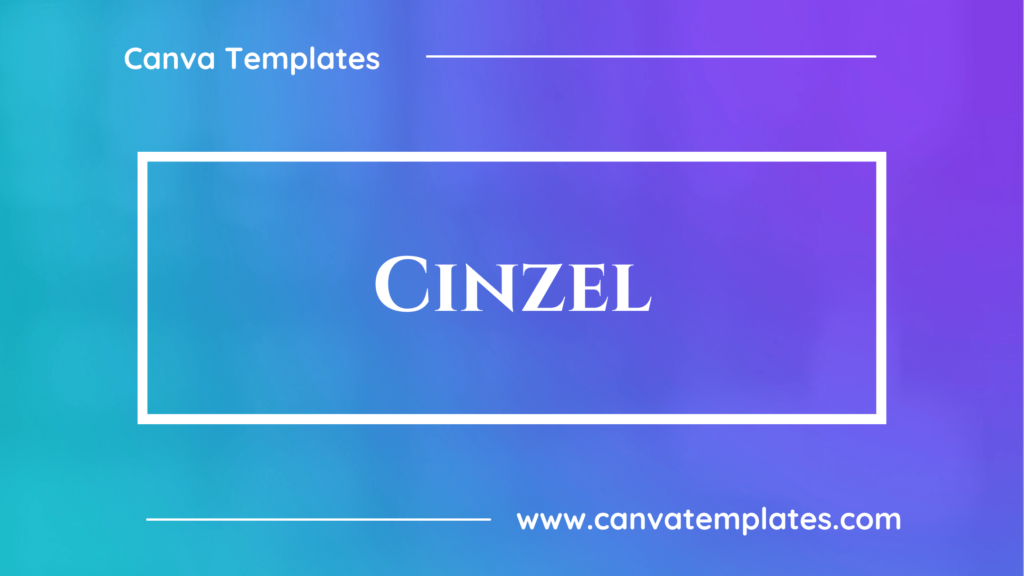
Cinzel is a typeface designed to be used for display purposes, such as headlines and titles. It is a serif font, which means it has small lines or decorative flourishes added to the ends of the main strokes of the letters. Cinzel is a geometric serif font, meaning that its design is based on geometric shapes and has a more modern and clean look than traditional serif fonts. It is available in regular, bold, and black weights, and has a wide range of characters and accents to support a variety of languages.
2. Yellow Peas
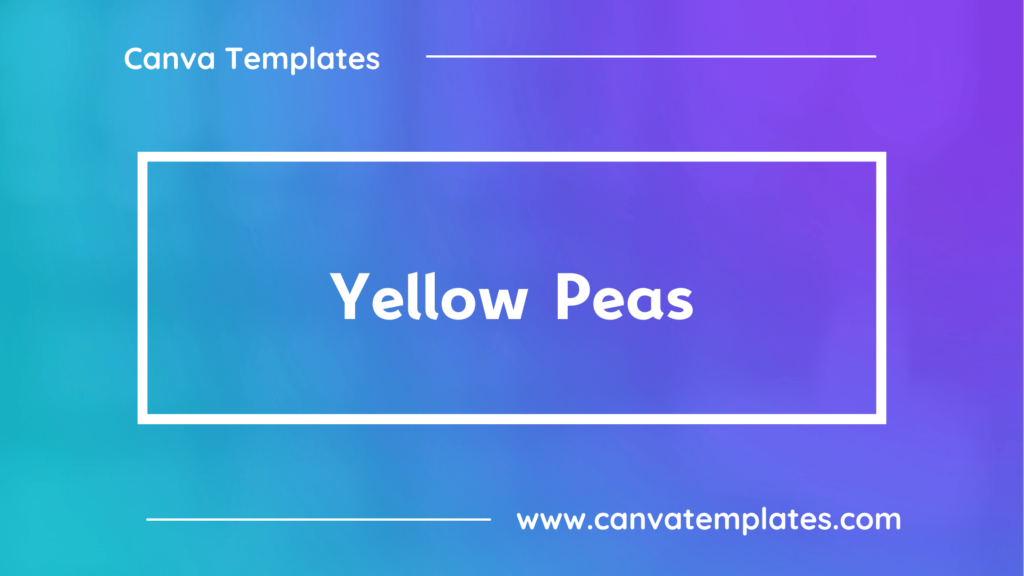
Yellow Peas Font Family was designed by Roland Hüse and published by Roland Hüse Design. Yellow Peas contains 10 styles and family package options.
3. Anahaw
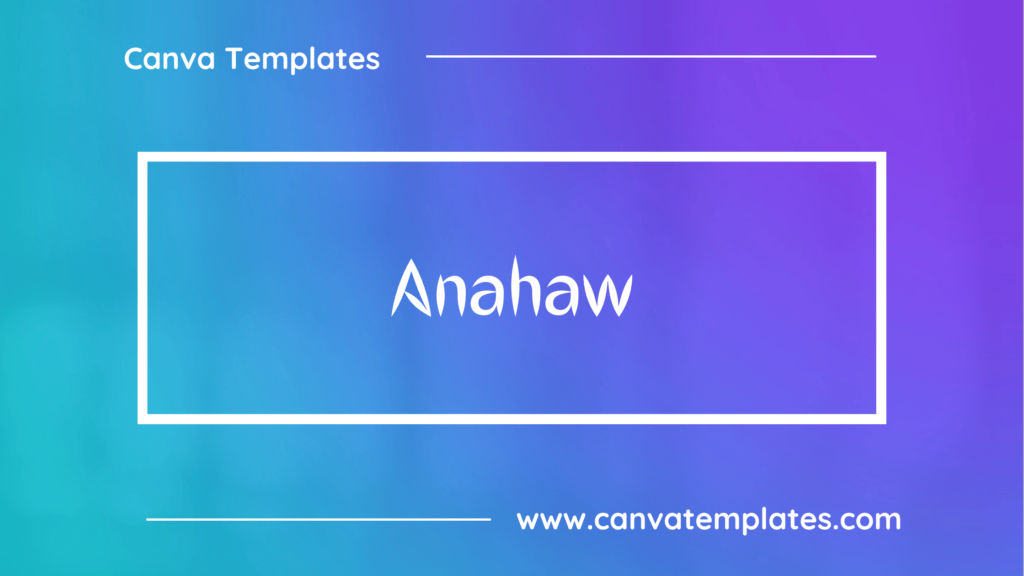
Anahaw is a sans-serif font, which means it does not have the small lines or decorative flourishes at the ends of the main strokes of the letters that are characteristic of serif fonts. Anahaw is a geometric sans-serif font, meaning that its design is based on geometric shapes and has a more modern and clean look than traditional sans-serif fonts.
4. Beast
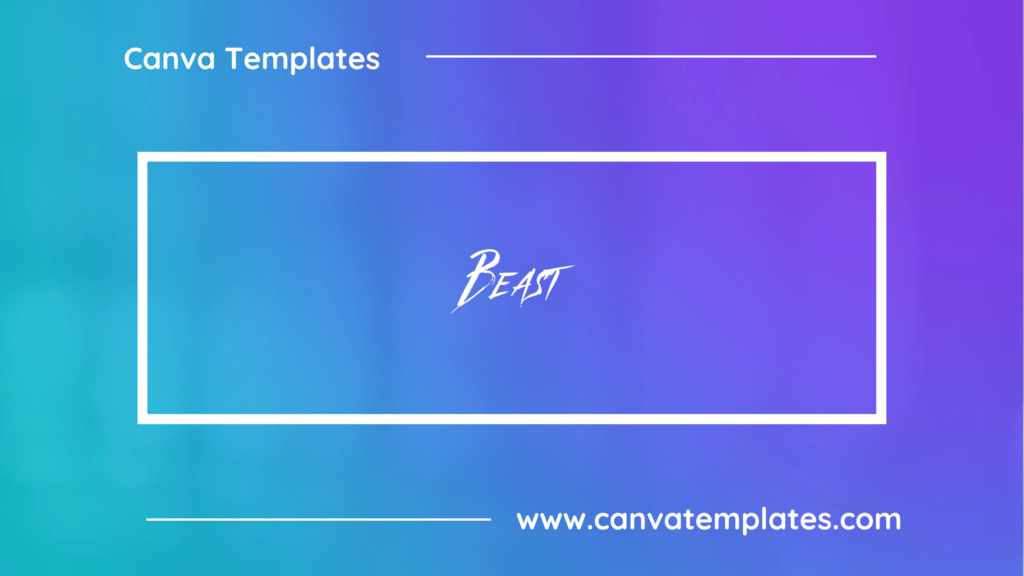
Beast is inspired by rebellion, strength, power, & Japanese ink, similar to against typeface, but this is very different and comes with a handmade Brush Texture style. The fonts are great for product logos, card logos, clothing brand logos, film titles, name tags, posters, and quotes. Combined with a graphics pack you can match into the design.
5. Armstrong
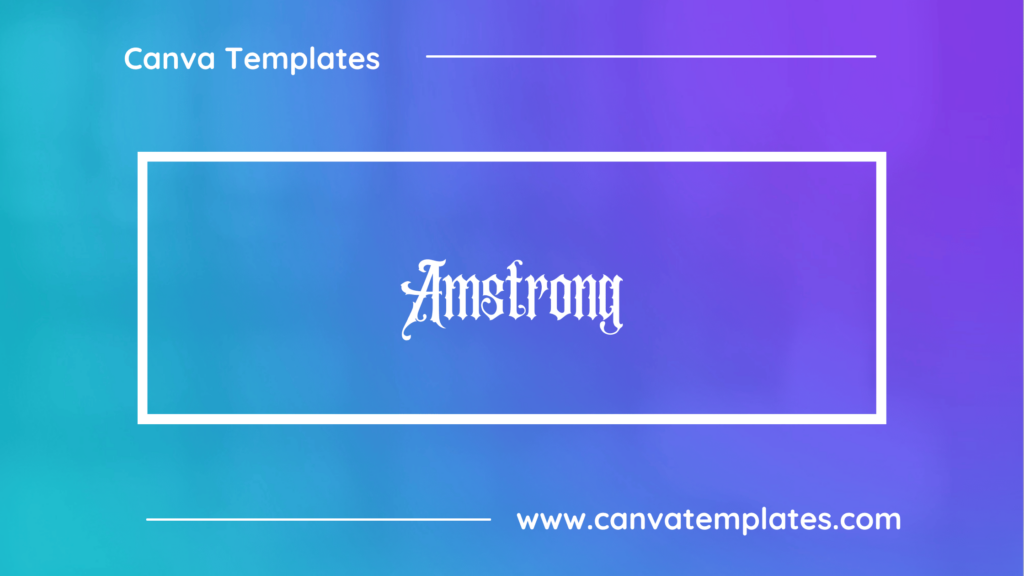
The Amstrong typeface is a new font Black letter from Rvq Typefoundry, a new typeface with a classy, elegant, and vintage feel character set. To create a beautiful combination, just mix the uppercase and lowercase then mix them with the alternative glyphs. The Amstrong typeface includes a full set of capital and lowercase letters, as well as multi-lingual support, currency figures, numerals, punctuation & some extra glyphs.
6. Blacktear
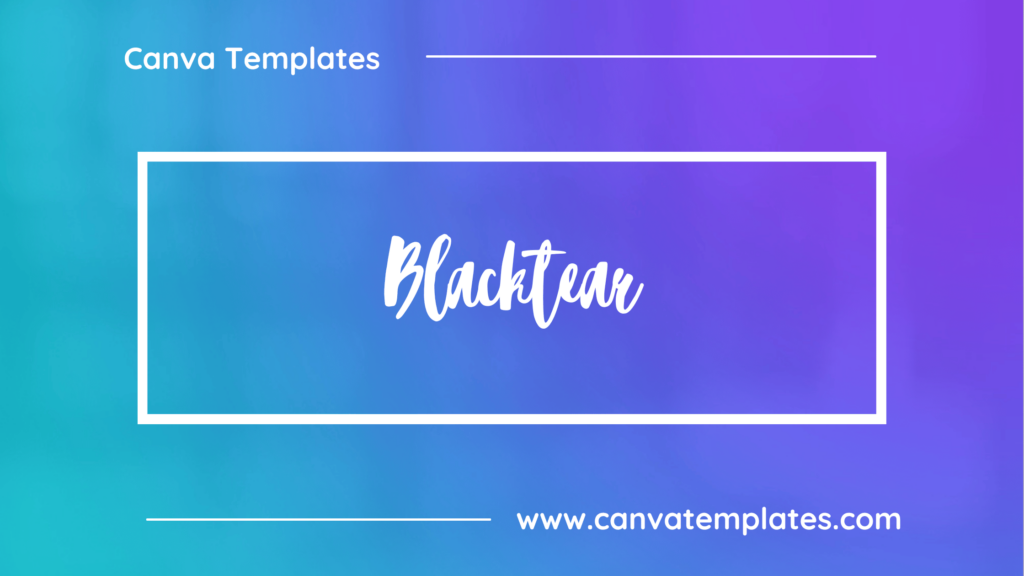
Blacktear is a decorative font designed for use in display settings, such as headlines and titles. It is a handwritten font that features a bold, brush stroke-style design and has a rough, expressive appearance. Blacktear is available in a single weight and has a limited range of characters. It is well-suited for use in projects that want to convey a sense of authenticity, hand-crafted feel, or personal touch. Blacktear may not be the most legible font for body text, but it can be used effectively as a design element in small doses.
7. Charu Chandan Blood Drip
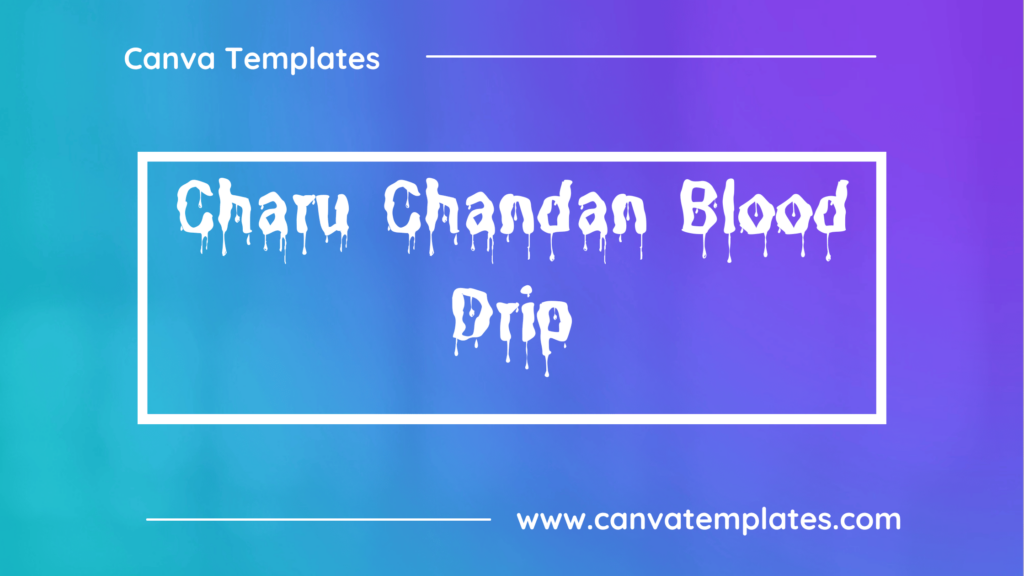
Charu Chandan Blood Drip Unicode is the perfect font for all your fun designs. The Charu Chandan Unicode font was designed by Chandan Acharja. The author works at the company Chandan Acharja. The font subfamily is Regular.
8. Blushes
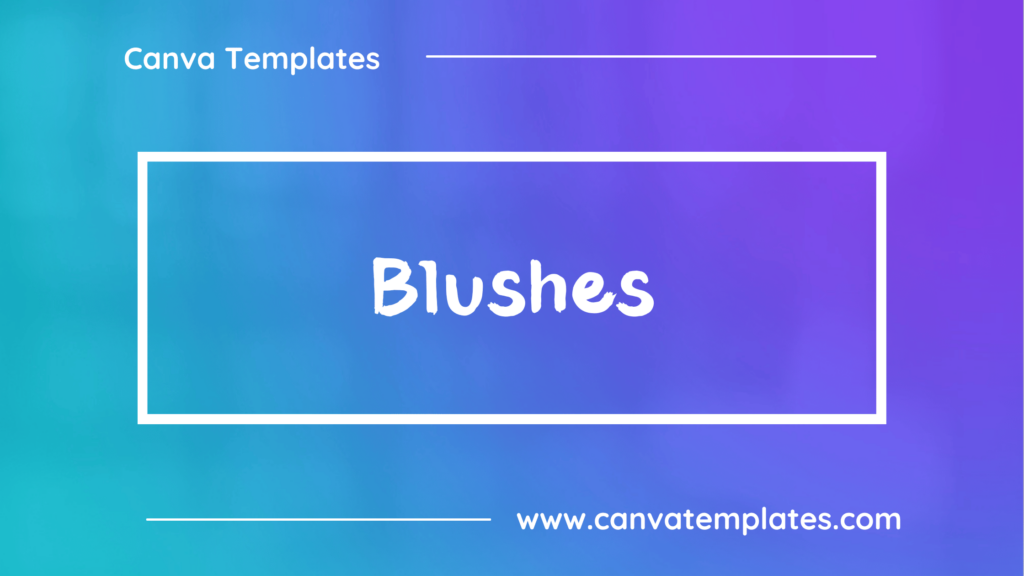
Blushes is a handwriting font that features a light, graceful script design. It has a playful, feminine feel and is well-suited for use in projects that want to convey a sense of warmth, friendliness, or romance. Blushes is available in a single weight and has a limited range of characters. It is best used in small amounts, such as for headlines or as an accent font in design projects, rather than for large blocks of body text.
9. Lovelo Line
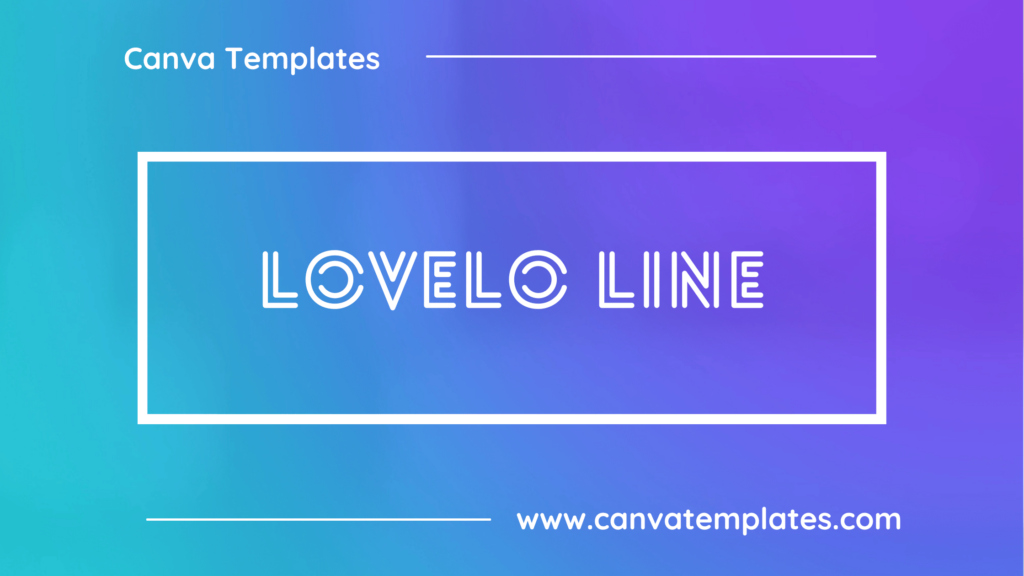
Lovelo Line is a sans-serif font that features a bold, geometric design. It has a modern, clean appearance and is well-suited for use in projects that want to convey a sense of simplicity, minimalism, or sophistication. Lovelo Line is available in a single weight and has a limited range of characters. It is best used in display settings, such as for headlines and titles, rather than for body text.
10. Jimmy Script
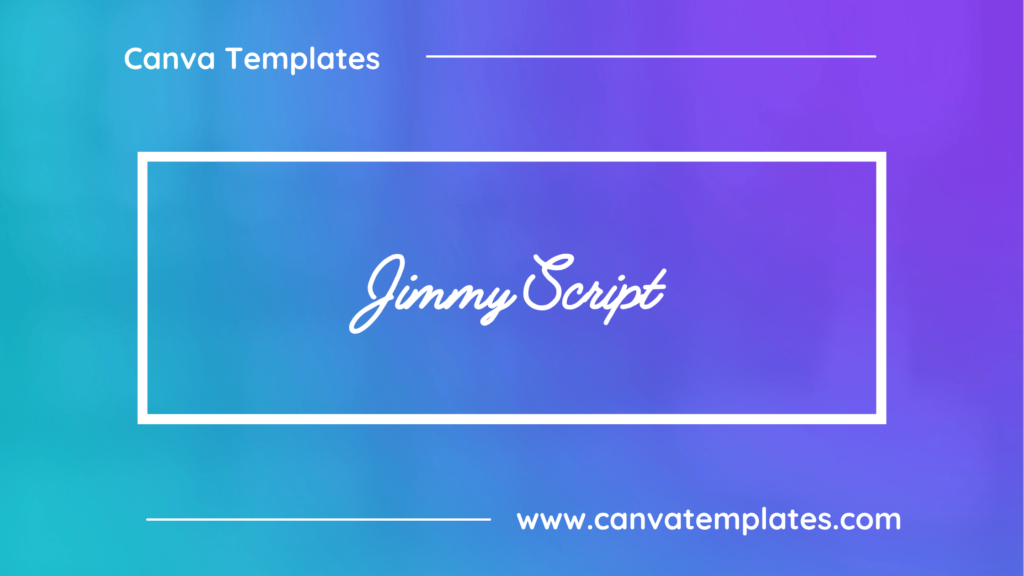
Jimmy Script is a handwriting font that features a casual, playful script design. It has a loose, friendly feel and is well-suited for use in projects that want to convey a sense of fun, personality, or informality. Jimmy Script is available in a single weight and has a limited range of characters.
Conclusion